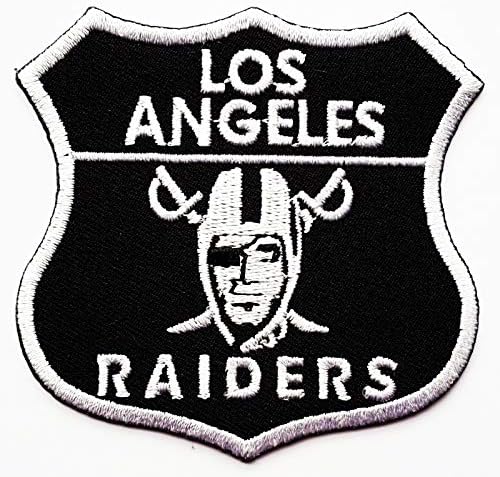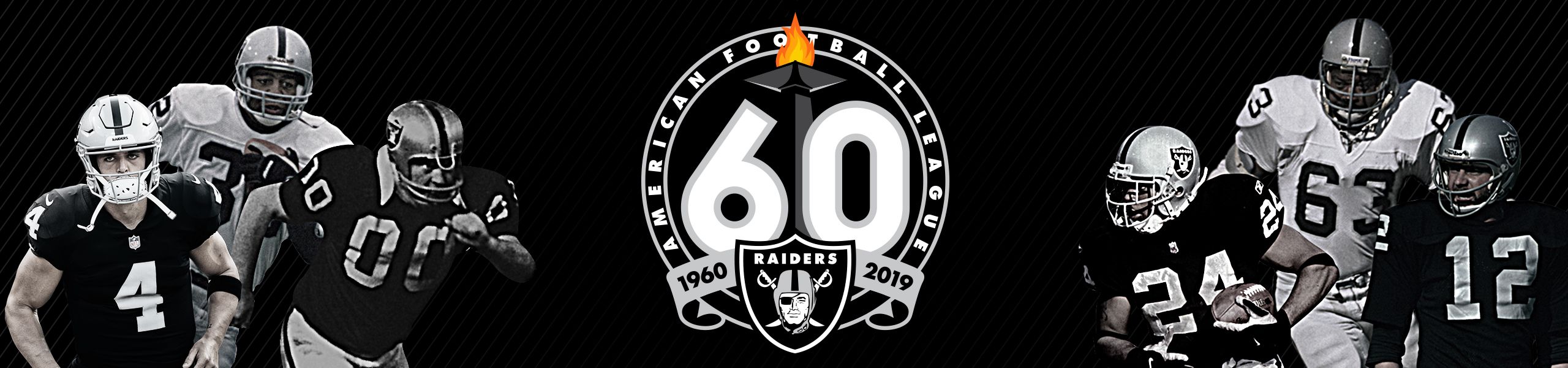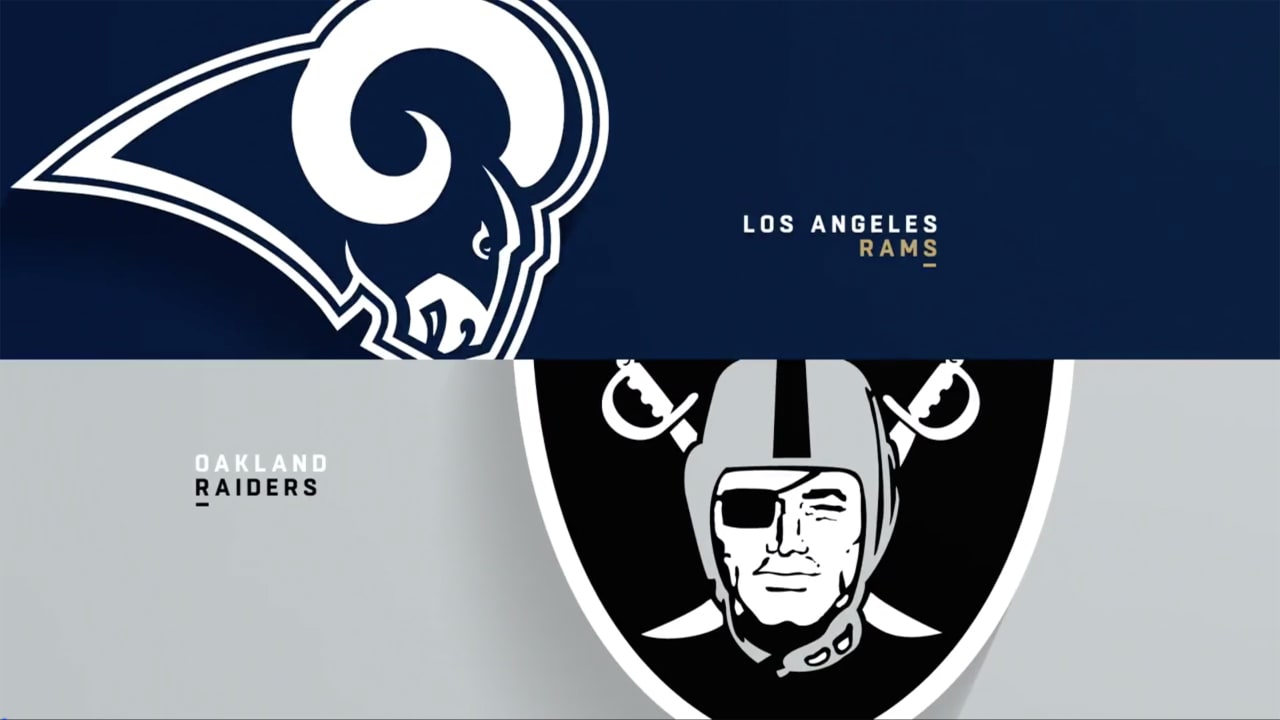
Font Los Angeles Raiders Logo
Font los angeles raiders logo. The closest font you can get for the oakland raiders logo is twentieth century mt ultrabold font. The fonts collection section is the place where you can browse filter custom preview and. Download raiders font free in ttf format for windows and mac.
Raiders wordmark logo is very bold just look at the font twentieth century mt ultrabold. A font based on the oakland raiders logo. During their stay in los angeles in 1982 1994 as well as after returning back to oakland the team has used almost the same logo.
The difference is in the wording words the oakland have been removed and the colors the shield has become black while the earlier version contained grey parts. A virtual museum of sports logos uniforms and historical items. Currently over 10000 on display for your viewing pleasure.